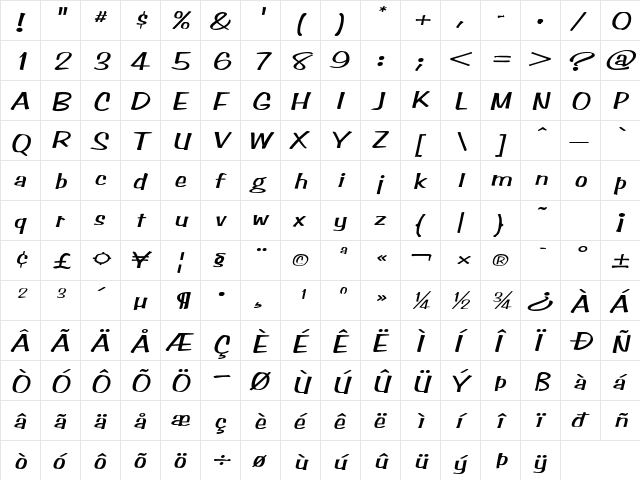
StimpsonExtended Oblique
Design Context for StimpsonExtended Typeface
StimpsonExtended offers clean, dependable letterforms without strong stylistic allegiance, making it a practical choice for designers who need flexibility. Its italic angle brings a sense of urgency and motion to the letterforms.
Pro Tip: Use StimpsonExtended for emphasis, pull quotes, and subheadings where its slanted energy can add rhythm to the layout.